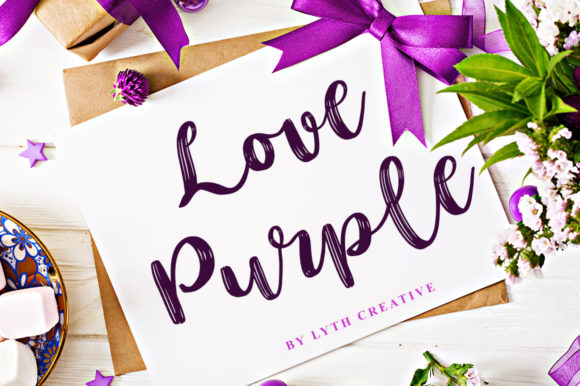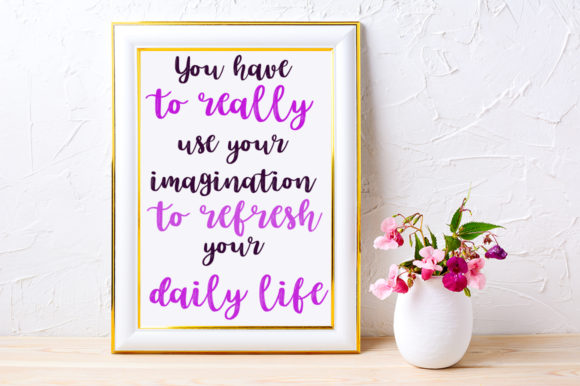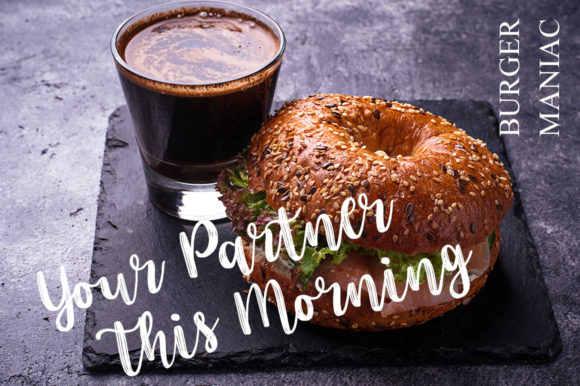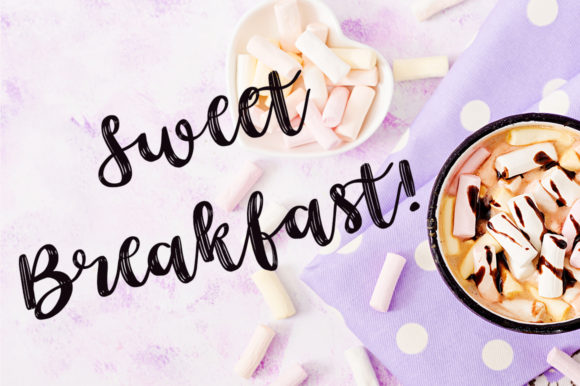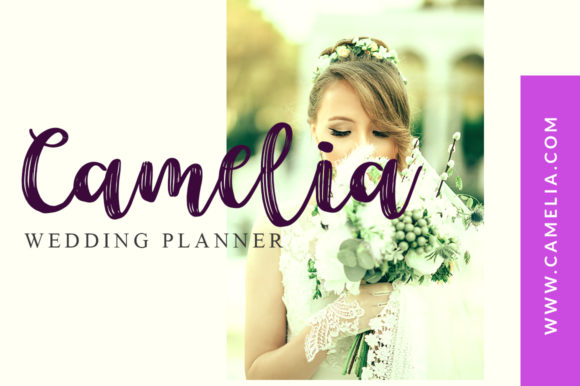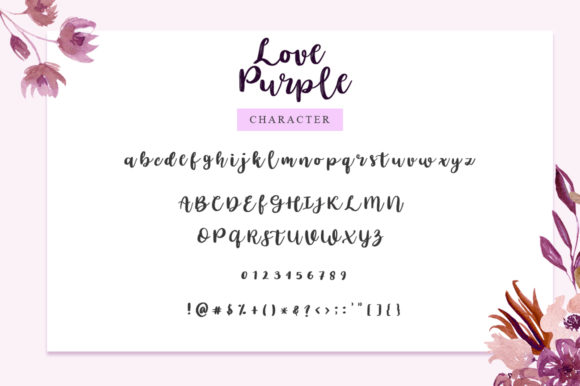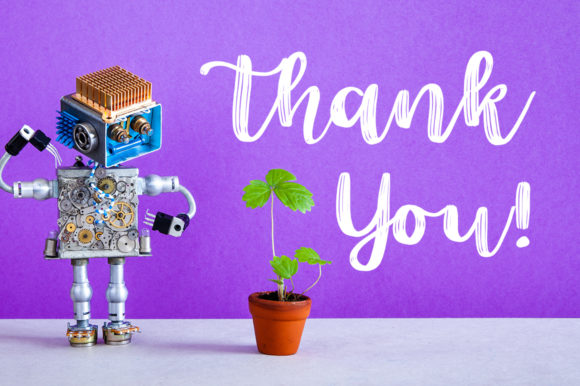
Love Purple Font
Love Purple is an incredibly lovely and sweet handwritten font with a magical twist. Use it to turn any design project into a standout!